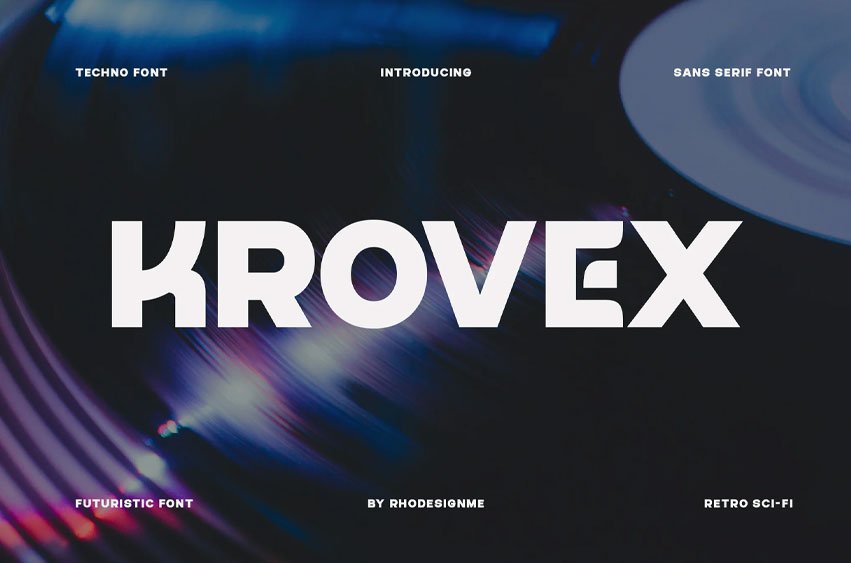
Krovex Font is a modern futuristic sans serif font crafted with strong geometric shapes and clean techno-inspired aesthetics. Designed to deliver a bold and powerful visual presence, this typeface combines retro sci-fi influences with contemporary minimalism, making it perfect for high-impact creative projects.
With its sleek curves, sharp cuts, and futuristic structure, Krovex is ideal for technology branding, gaming designs, cyberpunk visuals, sci-fi posters, digital interfaces, music covers, automotive themes, esports graphics, and modern editorial layouts. The font also includes stylish alternate characters and ligatures that add more flexibility and unique personality to your typography.
Krovex is built to help designers create eye-catching headlines and futuristic branding with ease. Whether you’re designing for digital media or print, this font brings a modern techno atmosphere that instantly stands out.
- Uppercase & Lowercase Characters
- Alternate Characters & Ligatures
- Futuristic Sans Serif Style
- Bold Geometric Letterforms
- Clean & Modern Design
- Multilingual Support